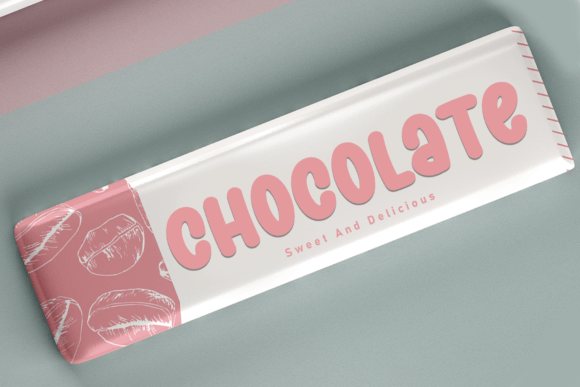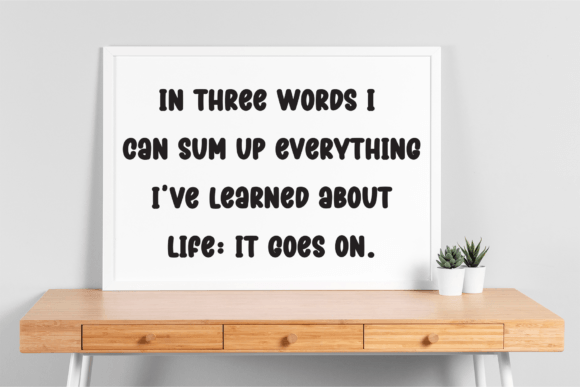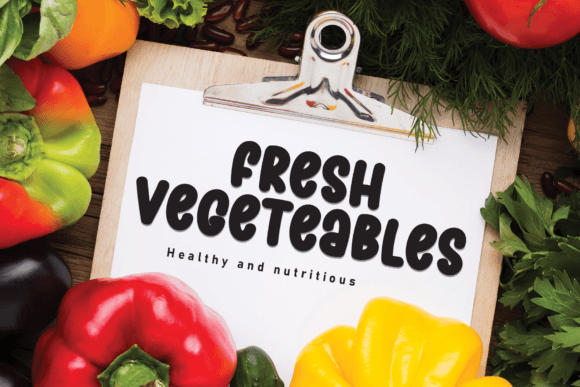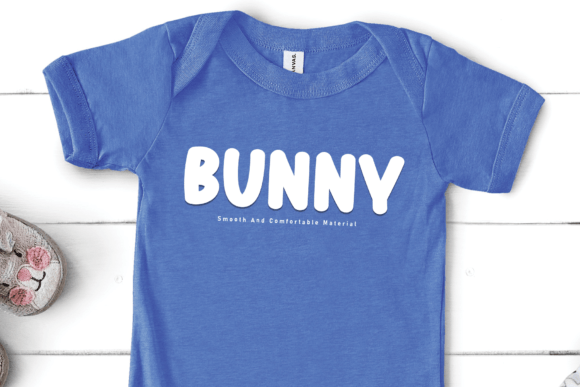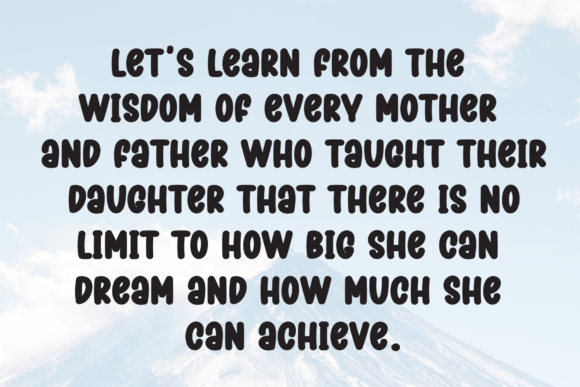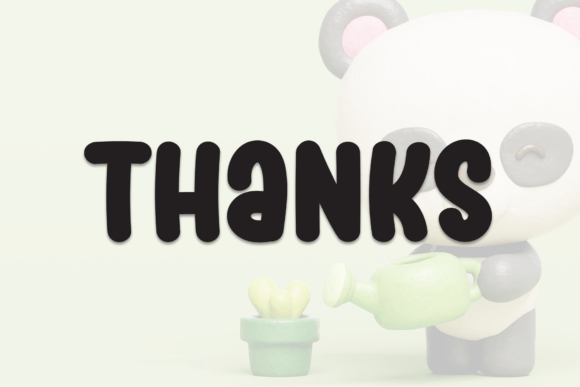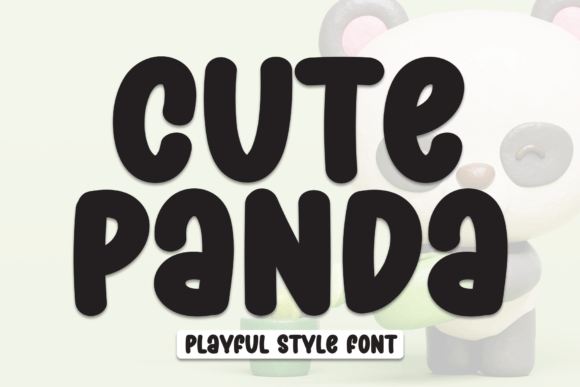
Cute Panda Font: The Sweet and Friendly Handwritten Font for Your Designs
Are you looking for a font that can add a touch of sweetness and friendliness to your designs? Look no further than the Cute Panda Font! This beautiful handwritten font is perfect for a wide range of design projects, from crafting and scrapbooking to branding and advertising. In this article, we’ll take a closer look at the Cute Panda Font and explore its features, benefits, and uses.
What is Cute Panda Font?
Cute Panda is a sweet and friendly handwritten font that is designed to bring a touch of whimsy and charm to your designs. Its natural and unique style makes it incredibly fitting to a large pool of designs, from kids’ party invitations and educational materials to branding and packaging. The only limit is your imagination!
Features of Cute Panda Font
The Cute Panda Font has several features that make it a great choice for designers and crafters. Some of its key features include:
- Handwritten style: The Cute Panda Font has a beautiful, handwritten style that gives it a personal and friendly feel.
- Unique and natural: The font’s unique and natural style makes it stand out from other fonts and allows it to fit in with a wide range of designs.
- Easy to read: Despite its playful style, the Cute Panda Font is easy to read, making it perfect for use in body text and other applications where legibility is important.
- Versatile: The Cute Panda Font can be used for a wide range of design projects, from digital designs to print materials.
Benefits of Using Cute Panda Font
There are many benefits to using the Cute Panda Font in your designs. Some of the key benefits include:
- Adds a touch of personality: The Cute Panda Font can add a touch of personality and whimsy to your designs, making them more engaging and memorable.
- Perfect for kids’ designs: The font’s playful and friendly style makes it perfect for use in kids’ designs, such as party invitations, educational materials, and children’s books.
- Great for branding: The Cute Panda Font can be used to create a unique and memorable brand identity that stands out from the competition.
Uses of Cute Panda Font
The Cute Panda Font can be used for a wide range of design projects, including:
- Crafting and scrapbooking: The font is perfect for use in crafting and scrapbooking projects, such as journaling, card making, and paper crafting.
- Kids’ party invitations: The Cute Panda Font is a great choice for kids’ party invitations, adding a touch of whimsy and fun to your designs.
- Branding and advertising: The font can be used to create a unique and memorable brand identity that stands out from the competition.
- Digital designs: The Cute Panda Font can be used in digital designs, such as social media graphics, blog posts, and email marketing campaigns.
In conclusion, the Cute Panda Font is a sweet and friendly handwritten font that is perfect for a wide range of design projects. Its natural and unique style makes it incredibly fitting to a large pool of designs, and its easy-to-read style makes it perfect for use in body text and other applications where legibility is important. Whether you’re a designer, crafter, or DIY enthusiast, the Cute Panda Font is a great choice for adding a touch of personality and whimsy to your designs.